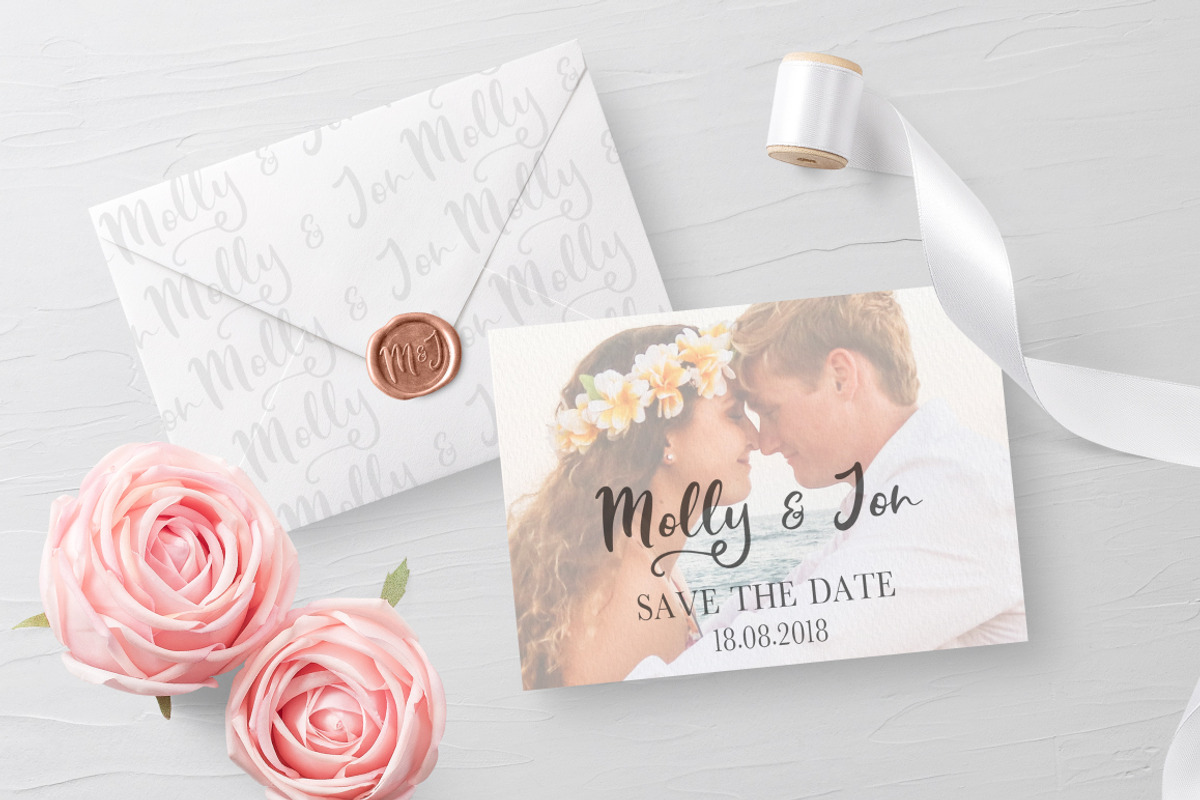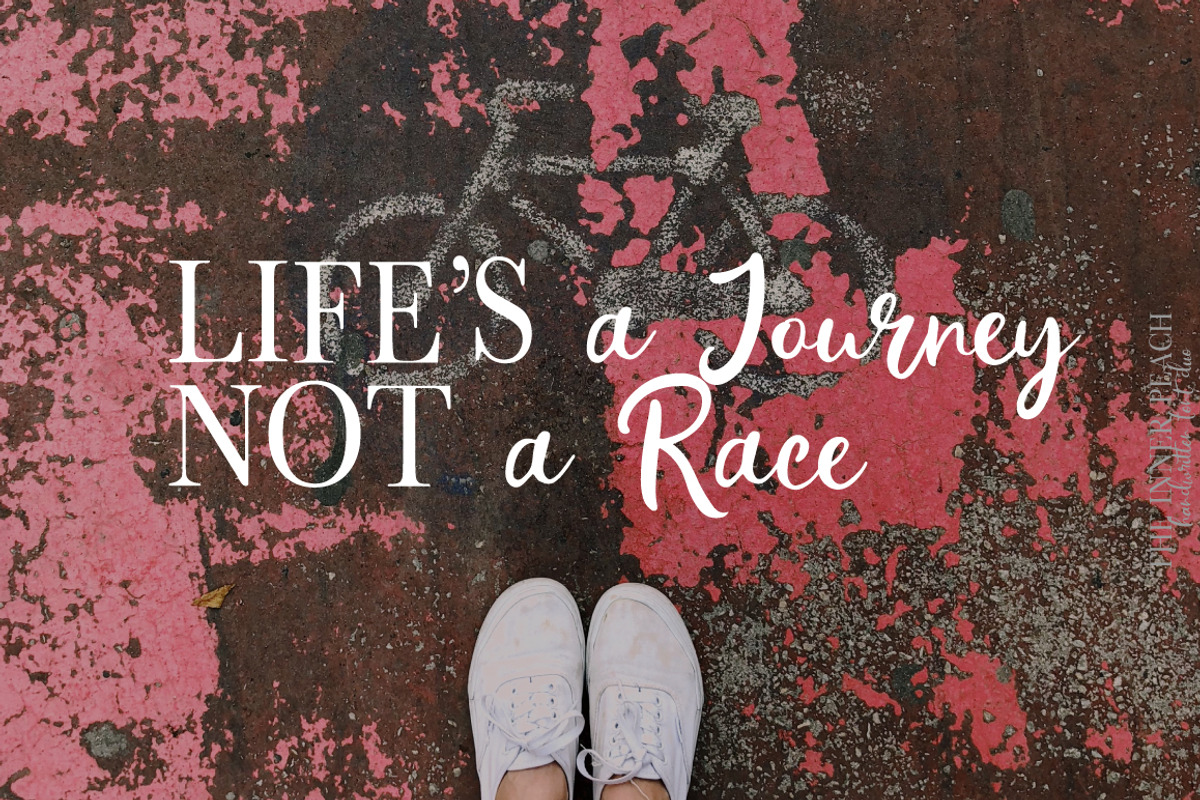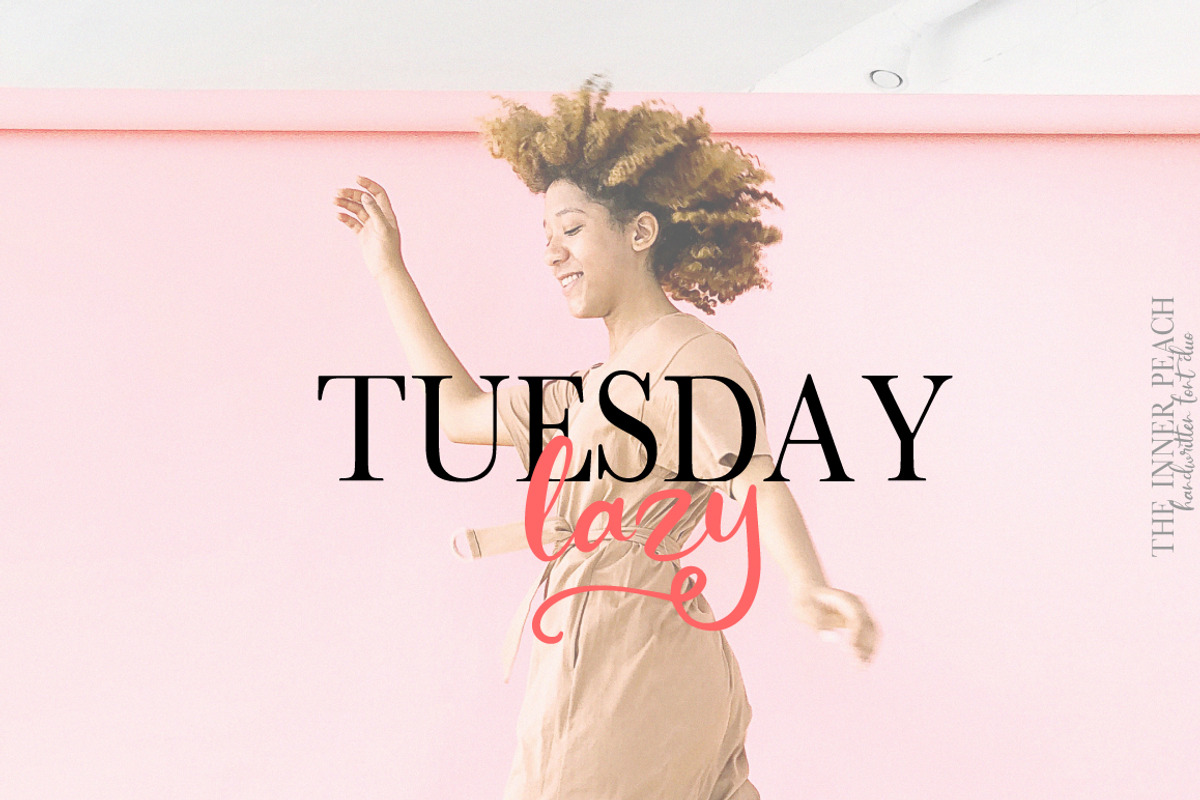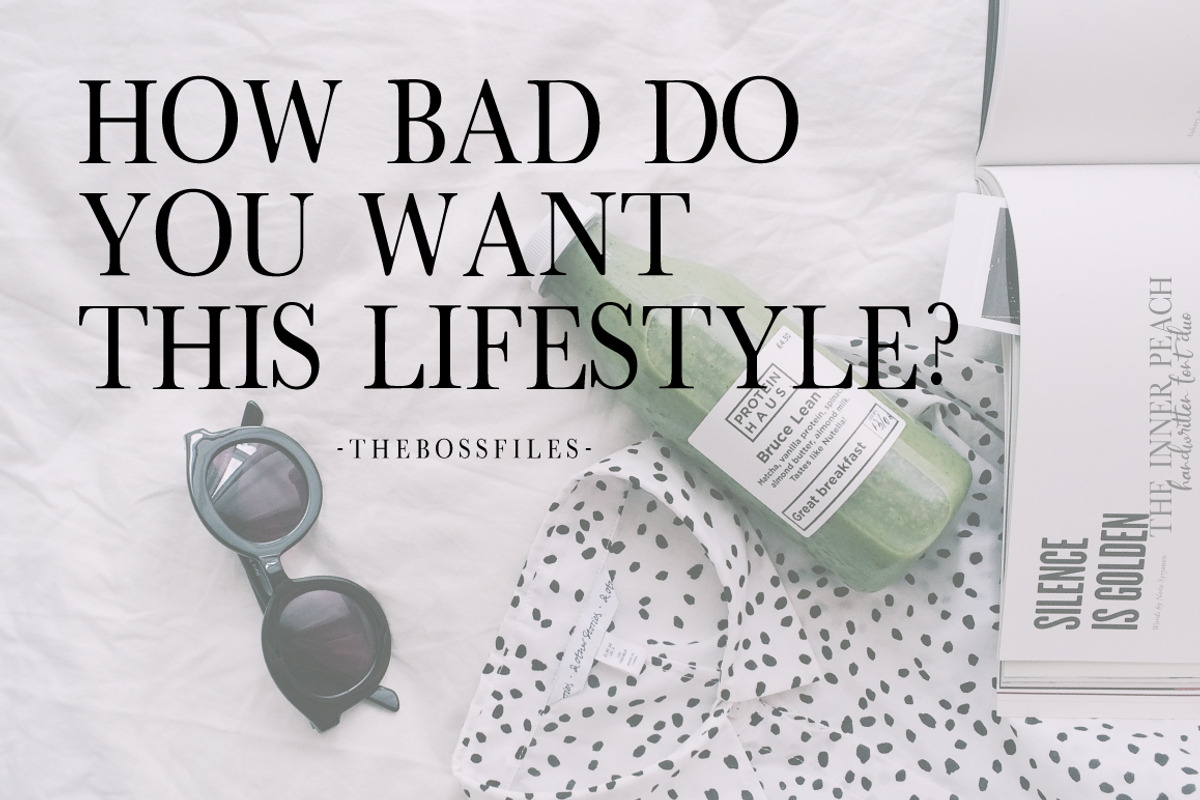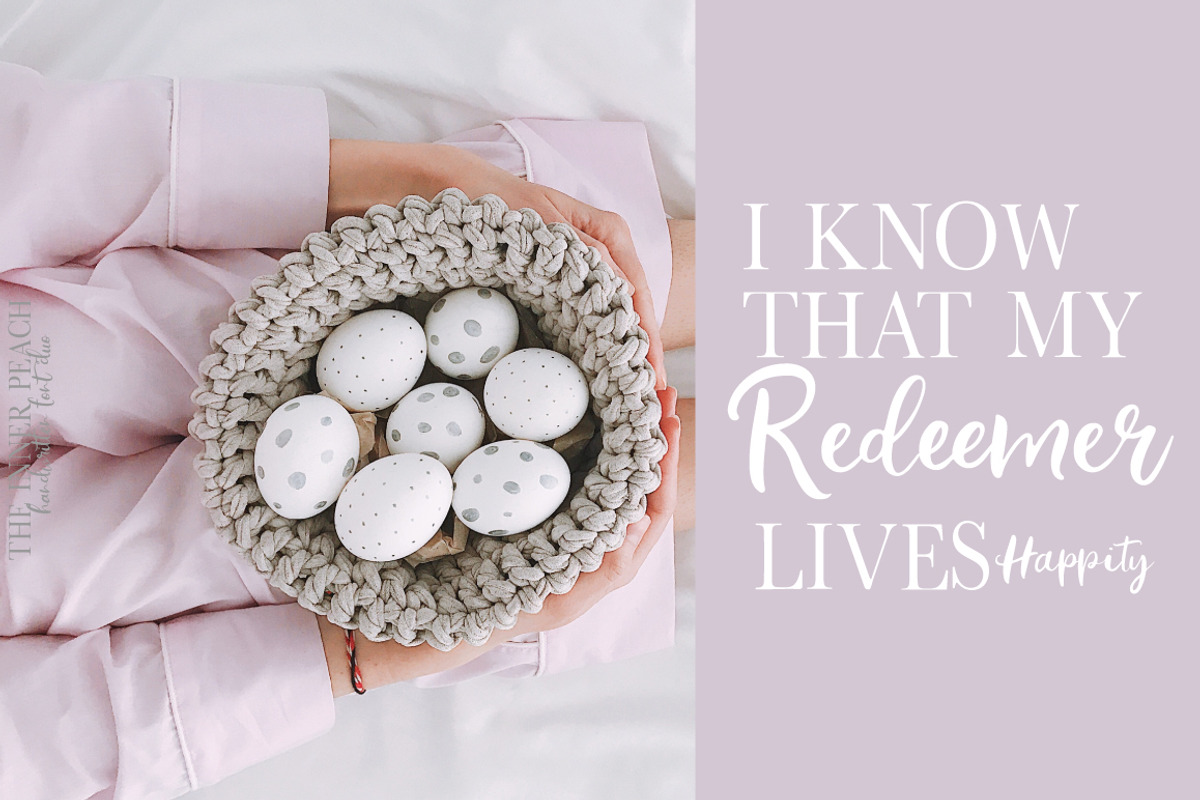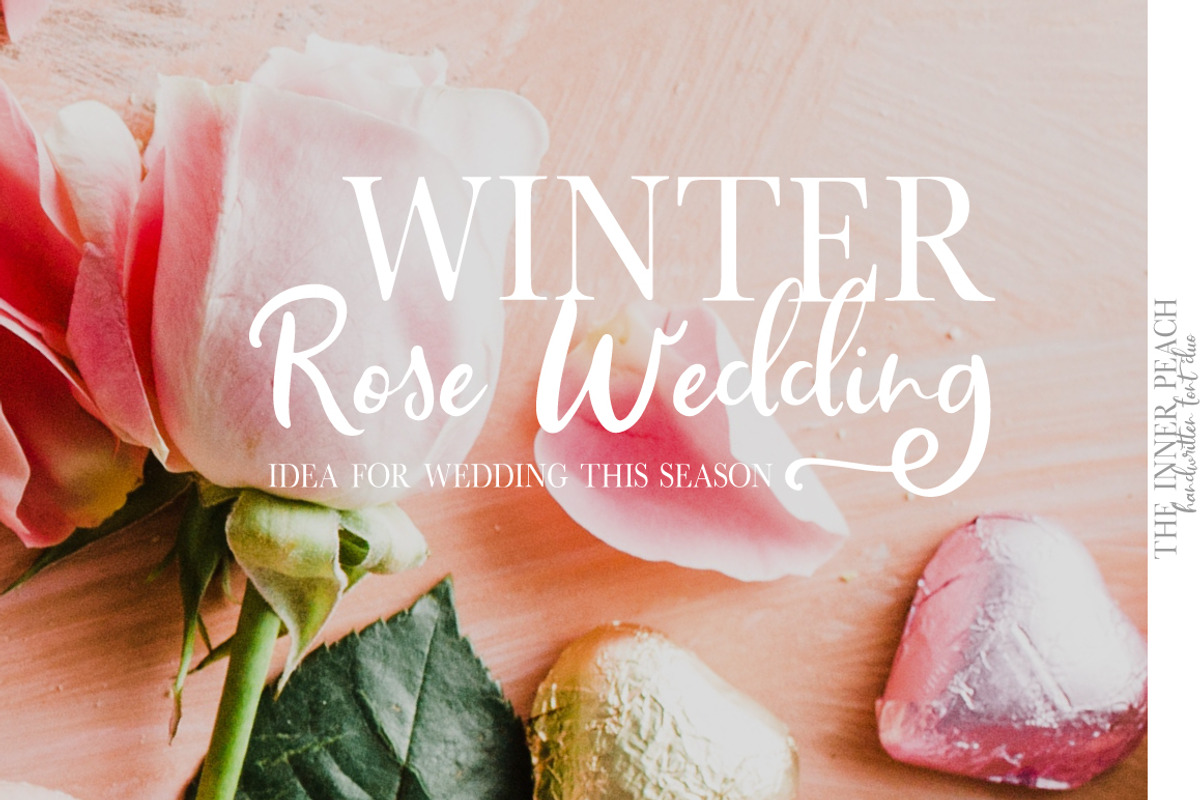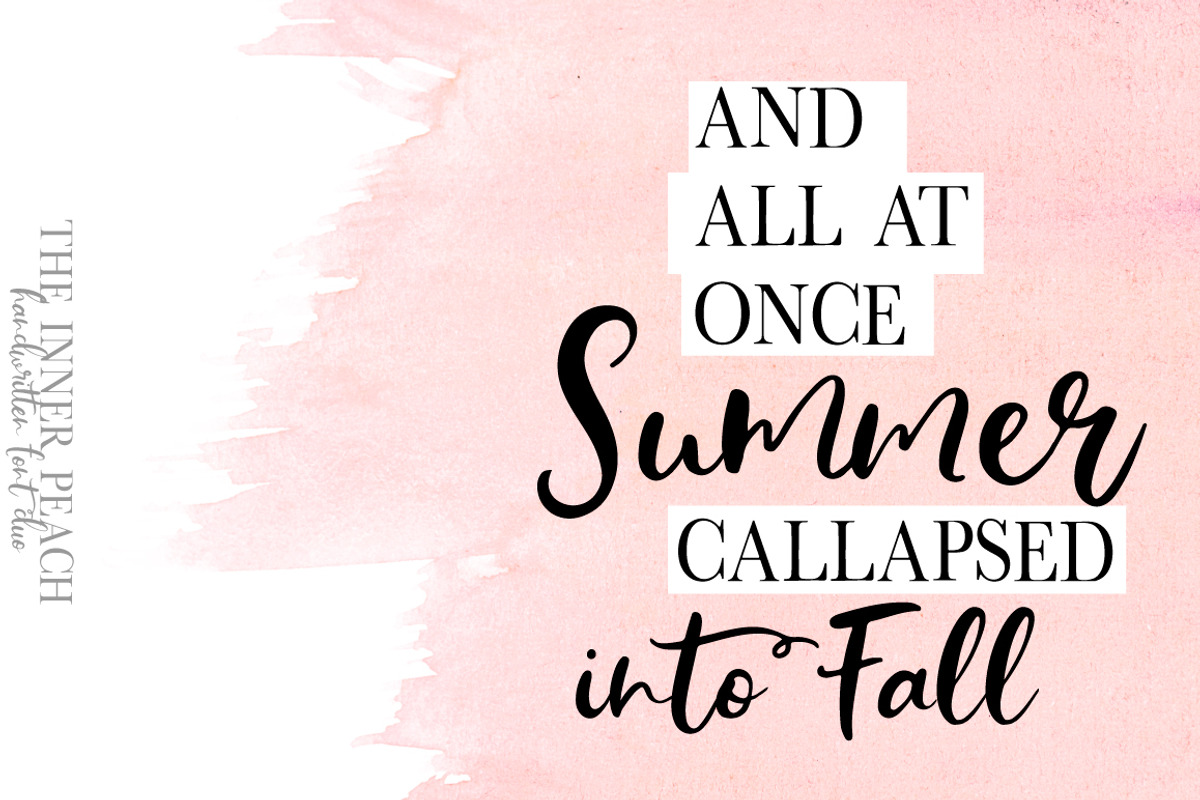
The Inner Peach | Font Duo
I'd like to Present you to The Inner Peach ;)
The Inner Peach is lovingly handwritten fonts. A brushed casual script, and a playful caps serif font.
A beautiful collection of hand-lettered modern calligraphy fonts. Perfect for Type-based creations, branding, packaging, quotes, invites, greetings, websites, book covers and so much more!
"The Inner Peach" (uppercase & lowercase letters, numbers, punctuation) including stylistic ligatures